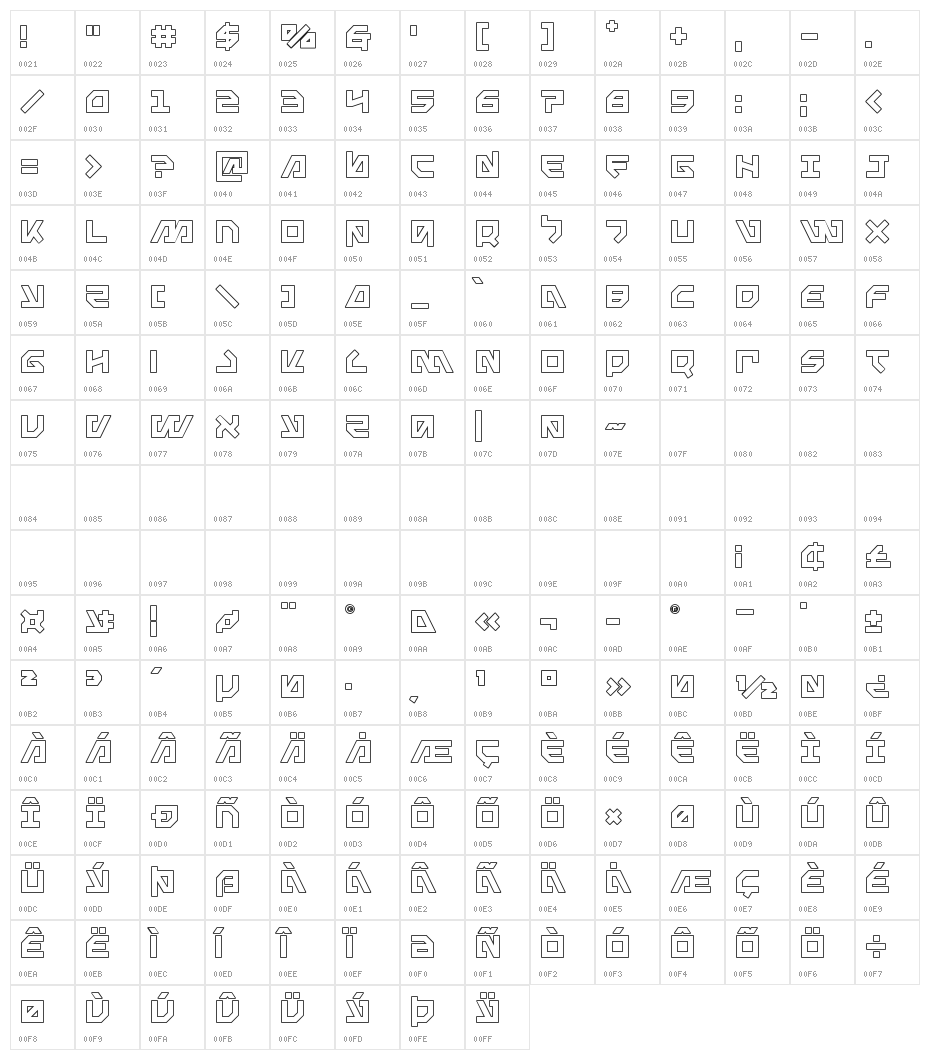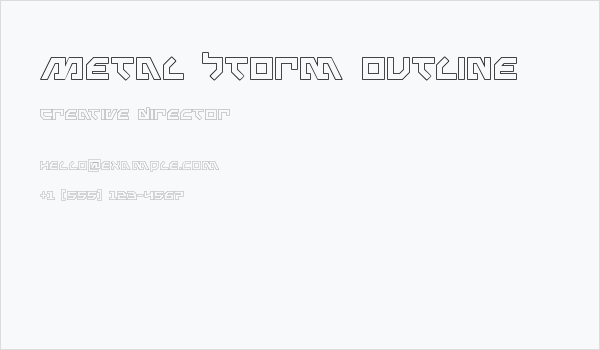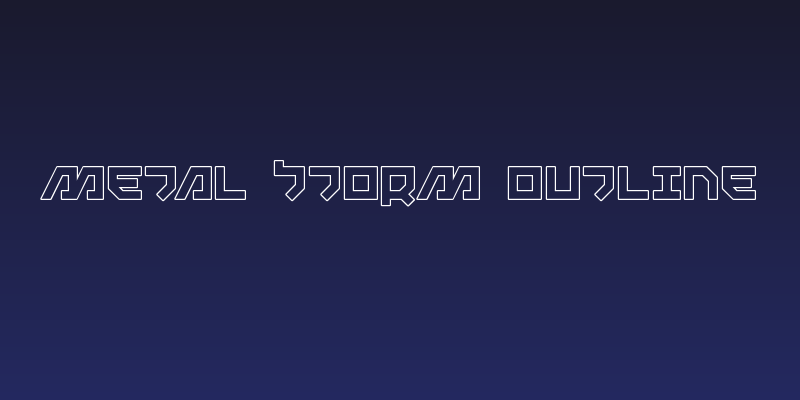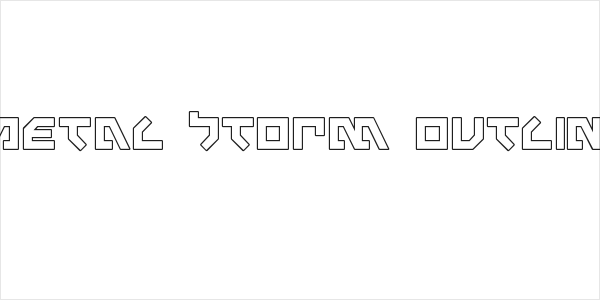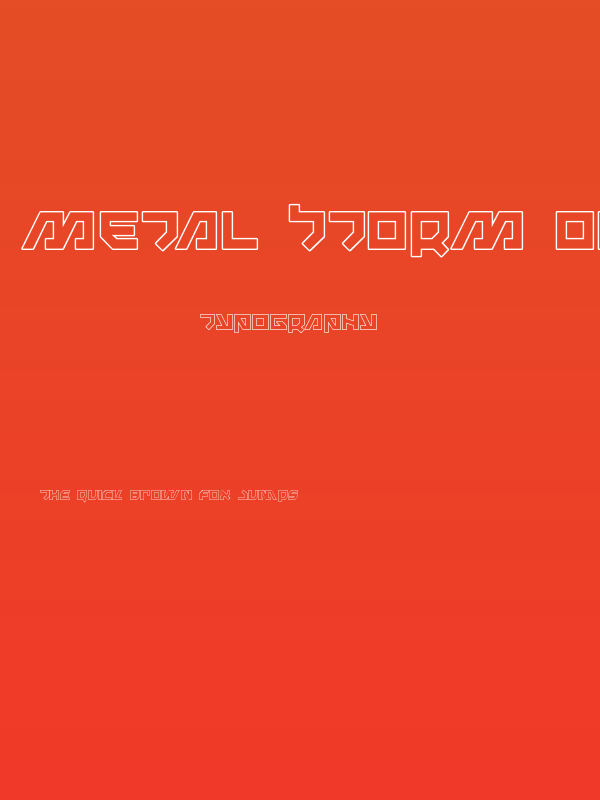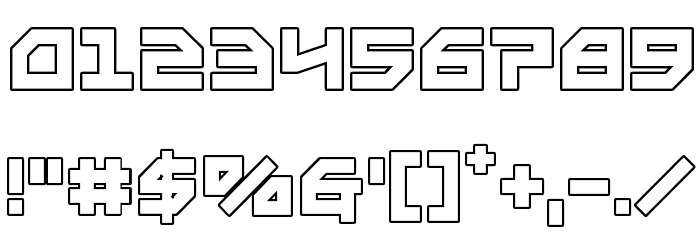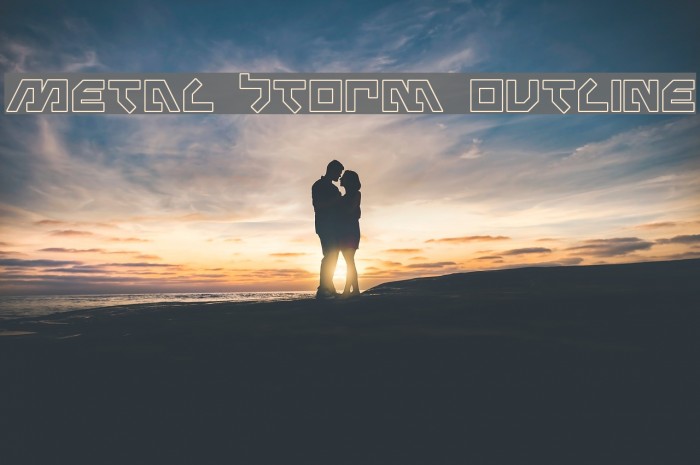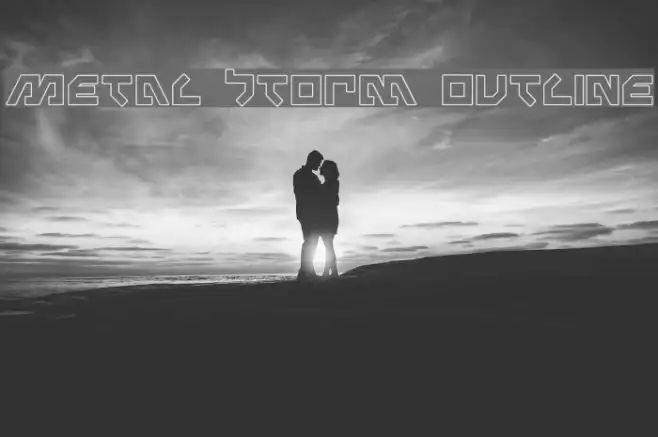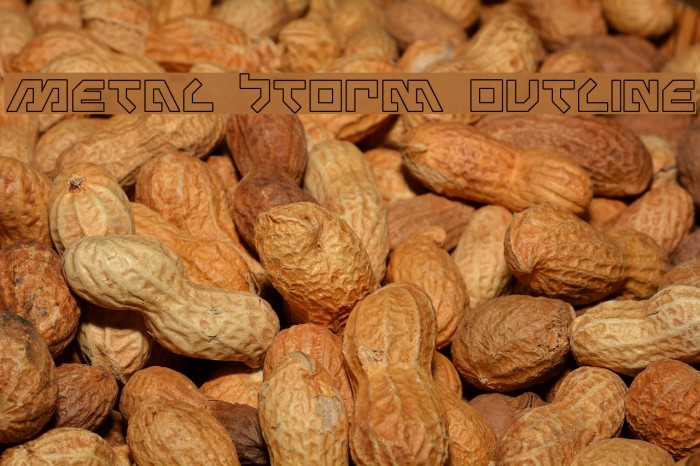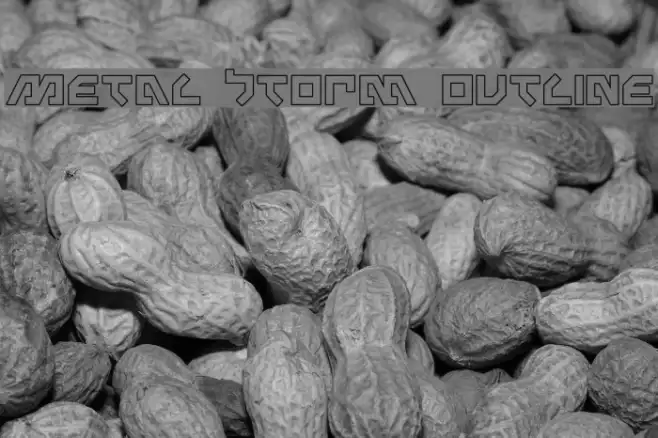
Metal Storm Outline Font
Metal Storm Outline Description
This font features a bold, angular design with a futuristic and industrial feel. The characters are outlined, giving them a hollow appearance that enhances their geometric structure. Each letter and number is crafted with sharp edges and straight lines, creating a sense of precision and modernity. The uppercase and lowercase letters maintain a consistent style, while the numerals and special characters follow the same angular theme. This font is ideal for projects that require a strong, impactful visual presence.
| Proposed Projects | Ideal for sci-fi themed designs, video game graphics, posters, and branding that requires a modern, edgy look. |